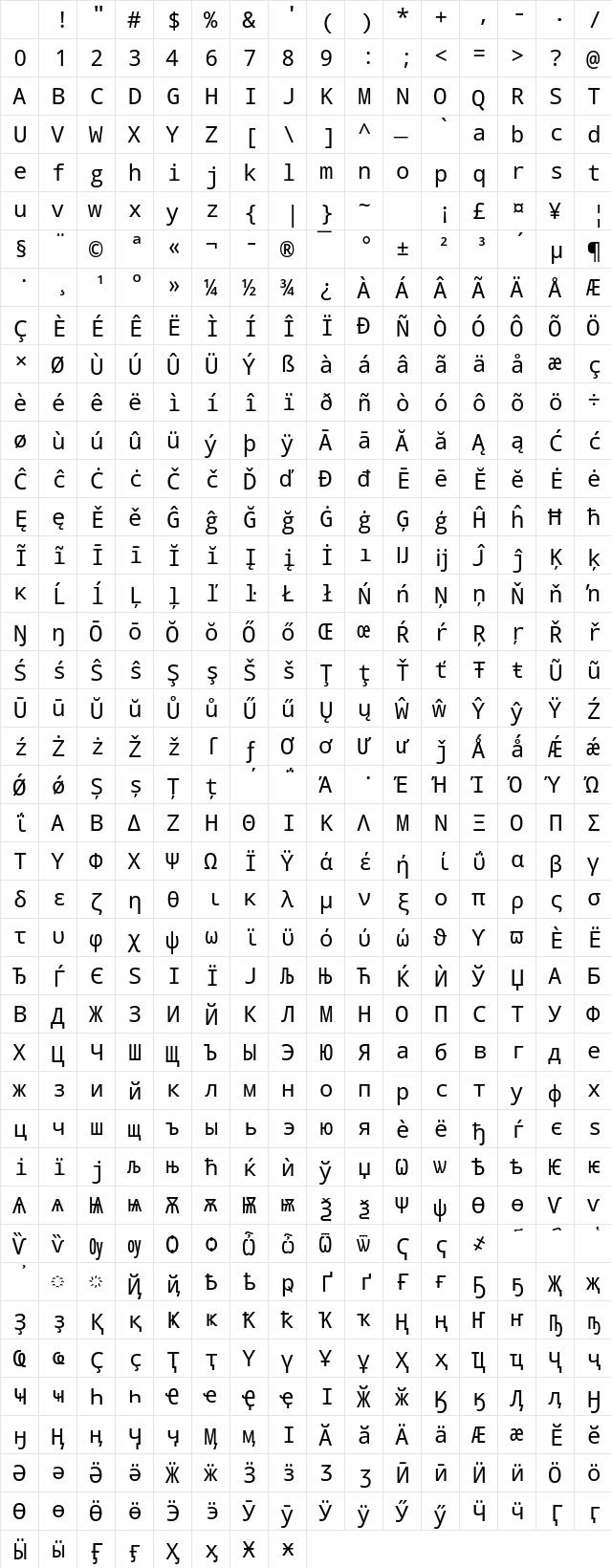
Complete NotoMono NF Book glyph index. Displaying only characters natively supported by NotoMono NF Book font.
NotoMono NF uses fixed-width spacing throughout, giving it the structured, systematic character associated with coding environments and technical documentation.
Pro Tip: Use NotoMono NF with slightly increased line-height for extended reading - fixed-width spacing can feel dense in longer passages without extra breathing room.